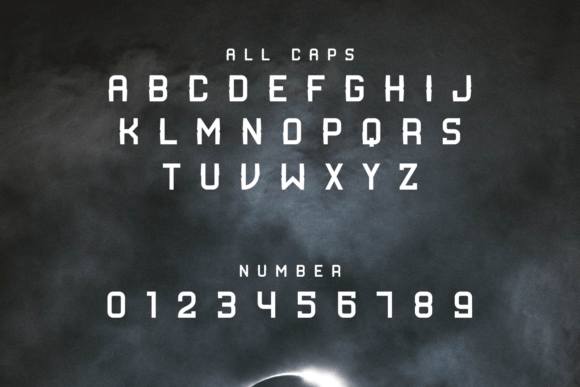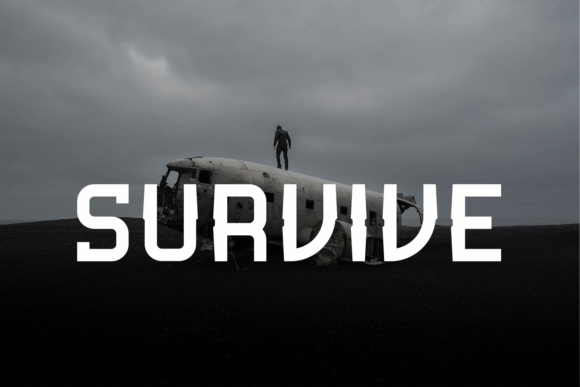
Introduction to Nairod Font Font
Fonts play a crucial role in design, and the Nairod Font font is a typeface that brings both character and versatility to any project. Whether you’re working on a branding project, a website, or a print design, the Nairod Font font offers a unique style that can elevate your work.
Nairod is a fun and quirky display font.
Add this unique display font to each of your creative ideas and notice how it makes them stand out .
Key Features of Nairod Font Font
Why Choose Nairod Font Font?
The Nairod Font font is more than just a typeface – it’s a design tool that helps you communicate your message with style and clarity. Its unique character set and versatile design make it suitable for a wide range of applications, from elegant invitations to bold headlines.
With its carefully crafted letterforms and balanced proportions, the Nairod Font font ensures readability and visual appeal across all mediums.
What makes Nairod Font font special?
The Nairod Font font stands out with its unique design, exceptional readability, and versatility across various design applications.